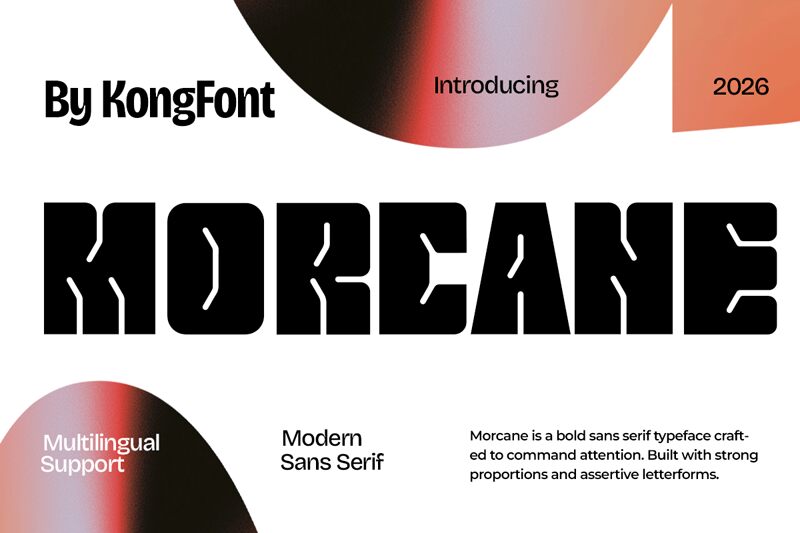
Morcane font by Kong Font is a free font designed to hold attention with its high-impact presence. Combining a dynamic and commanding appearance with a modern aesthetic, this typeface is a statement to assertive character and visual stability. Its contemporary appeal flows through its smooth lines and strong geometric rules which it strictly follows.
With print and digital projects in mind, Morcane proves versatile with its carefully designed dynamic forms structure. Use this font to design book covers, magazines, posters, banners, packaging, advertising, and branding. Morcane will also show its power when used for movie titles, TV series intros, visual video effects, and signage.